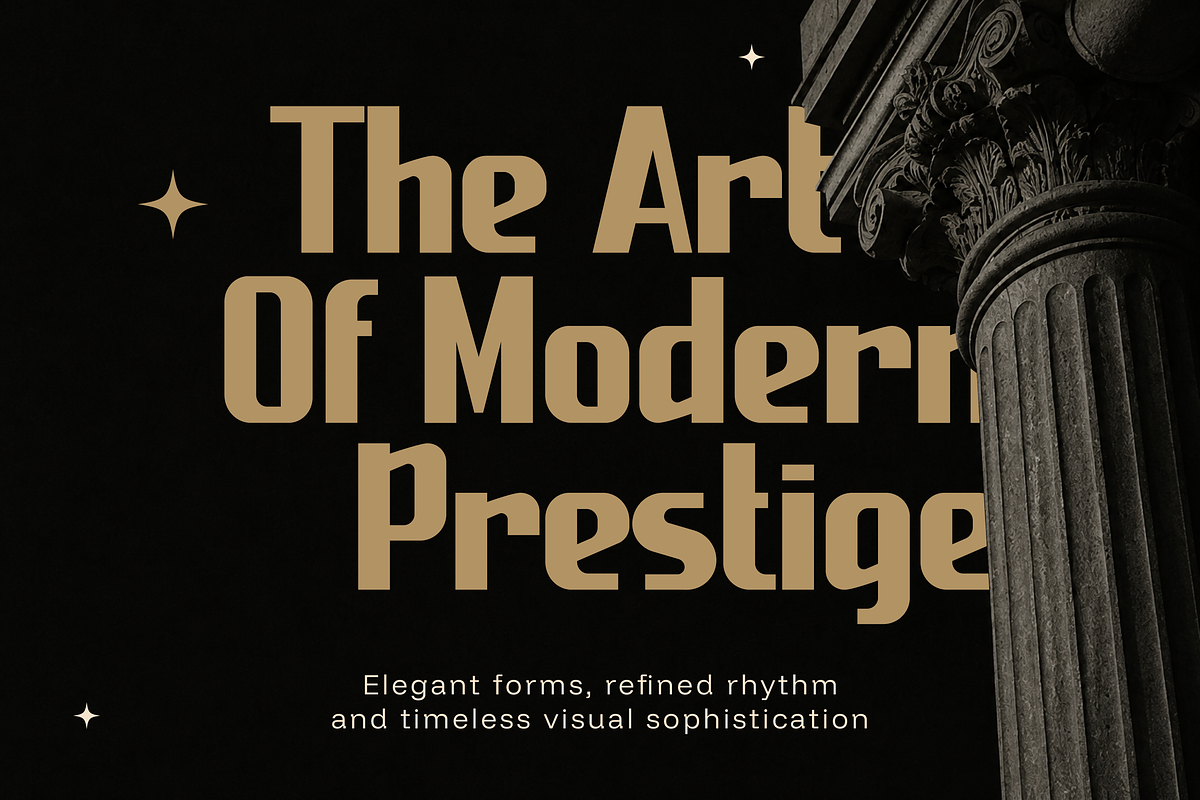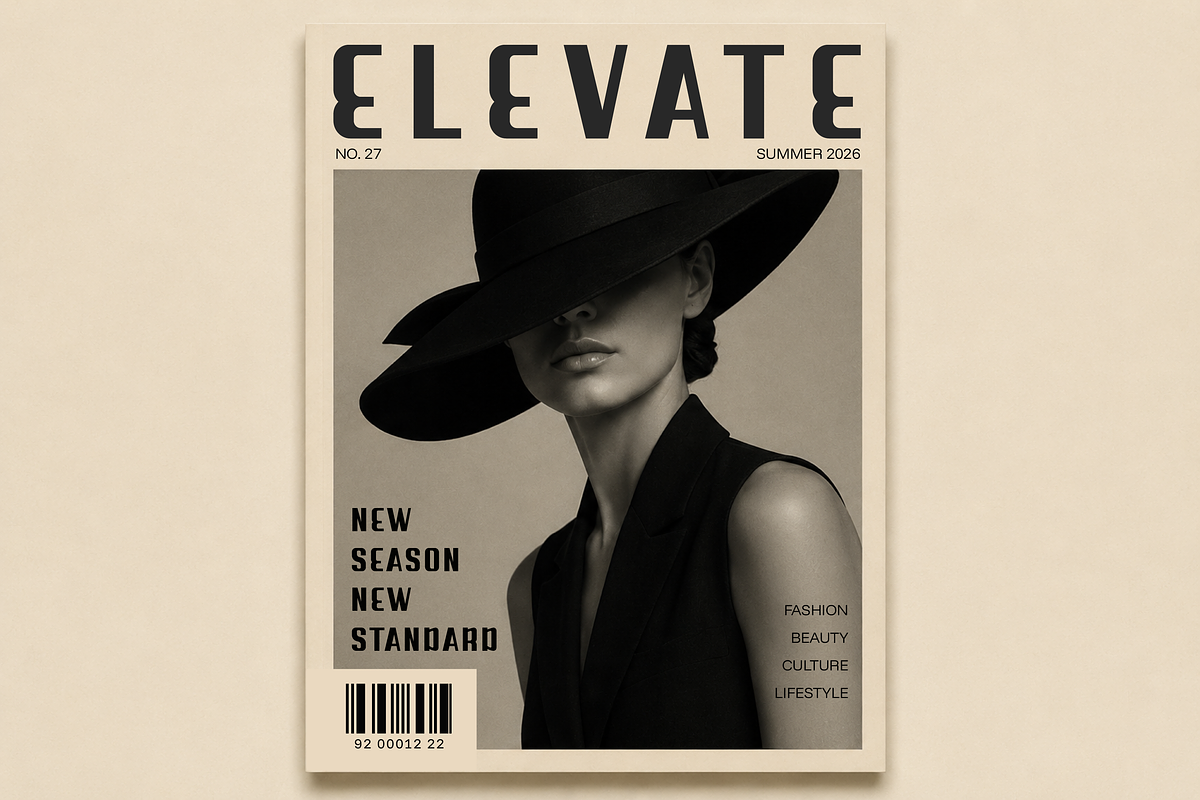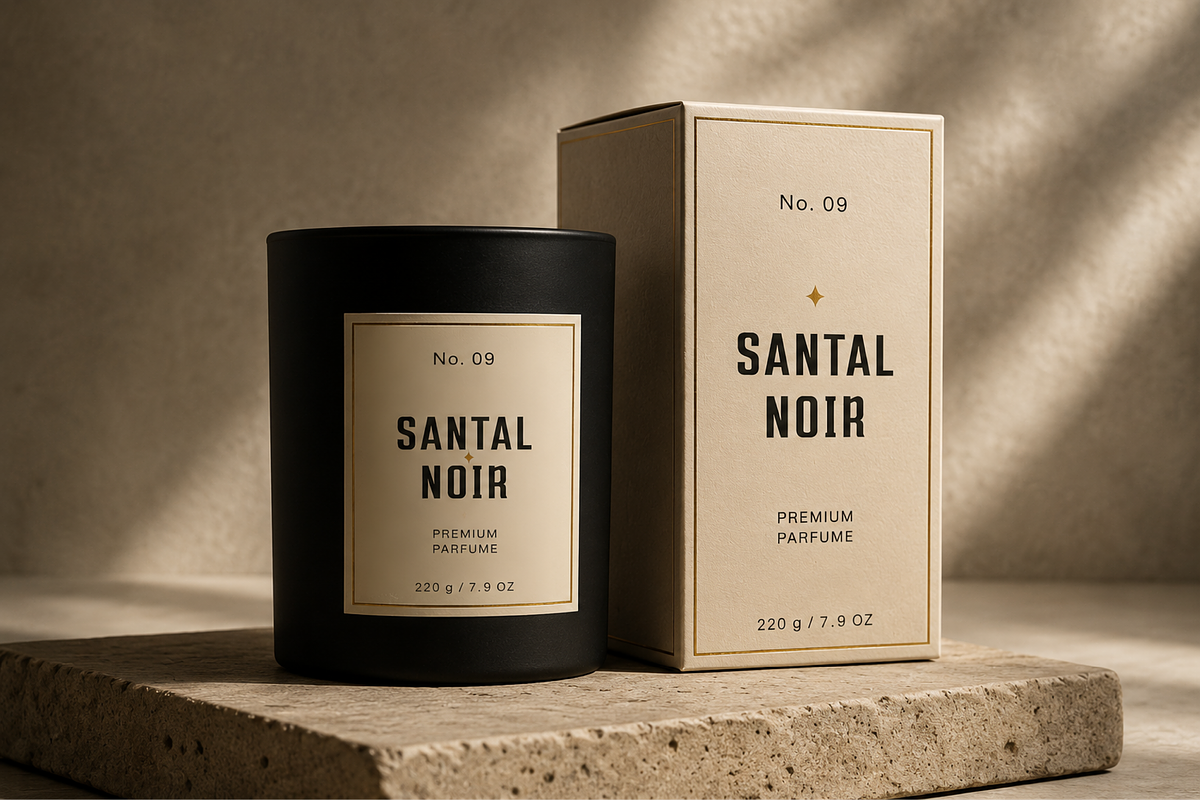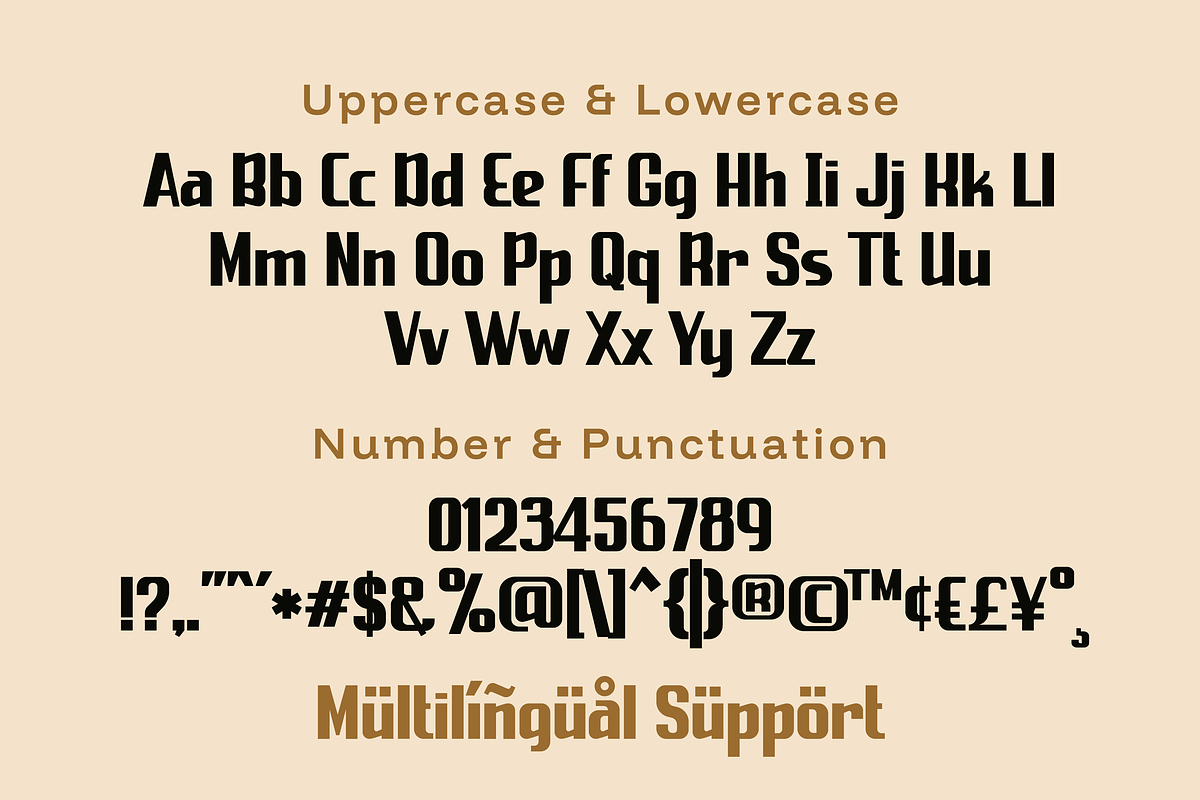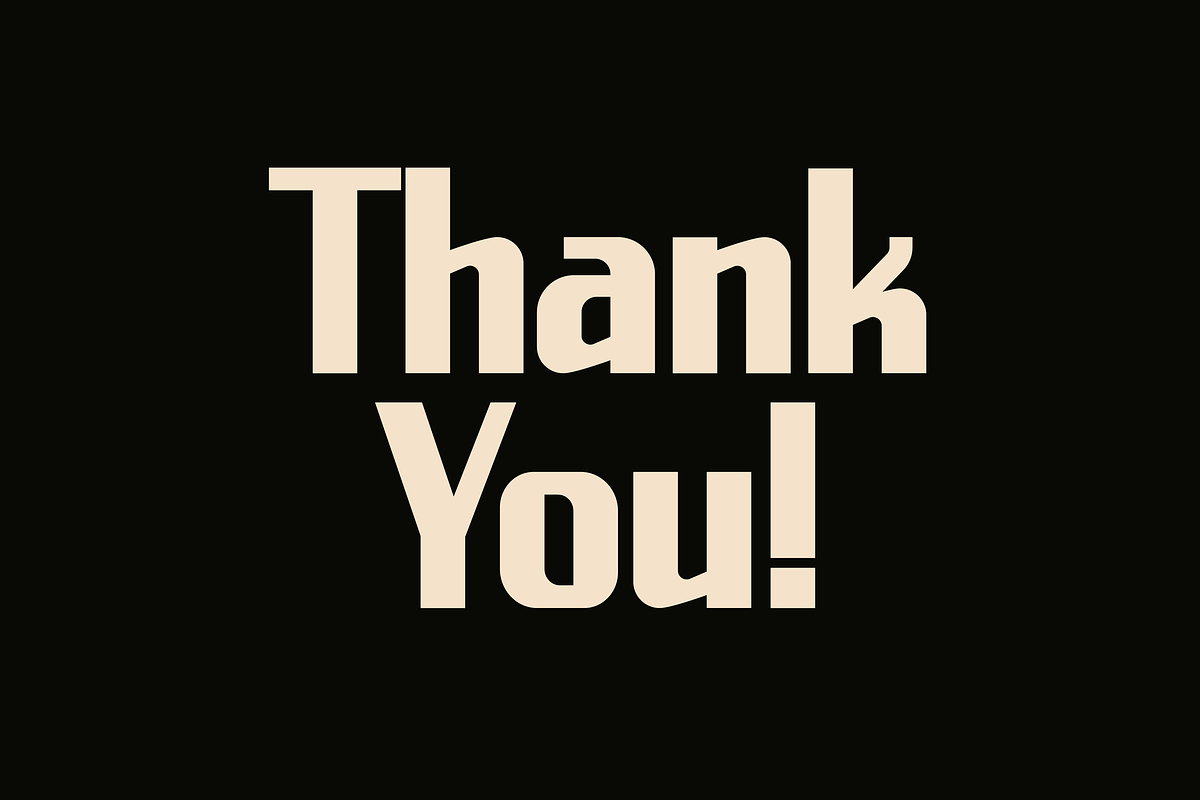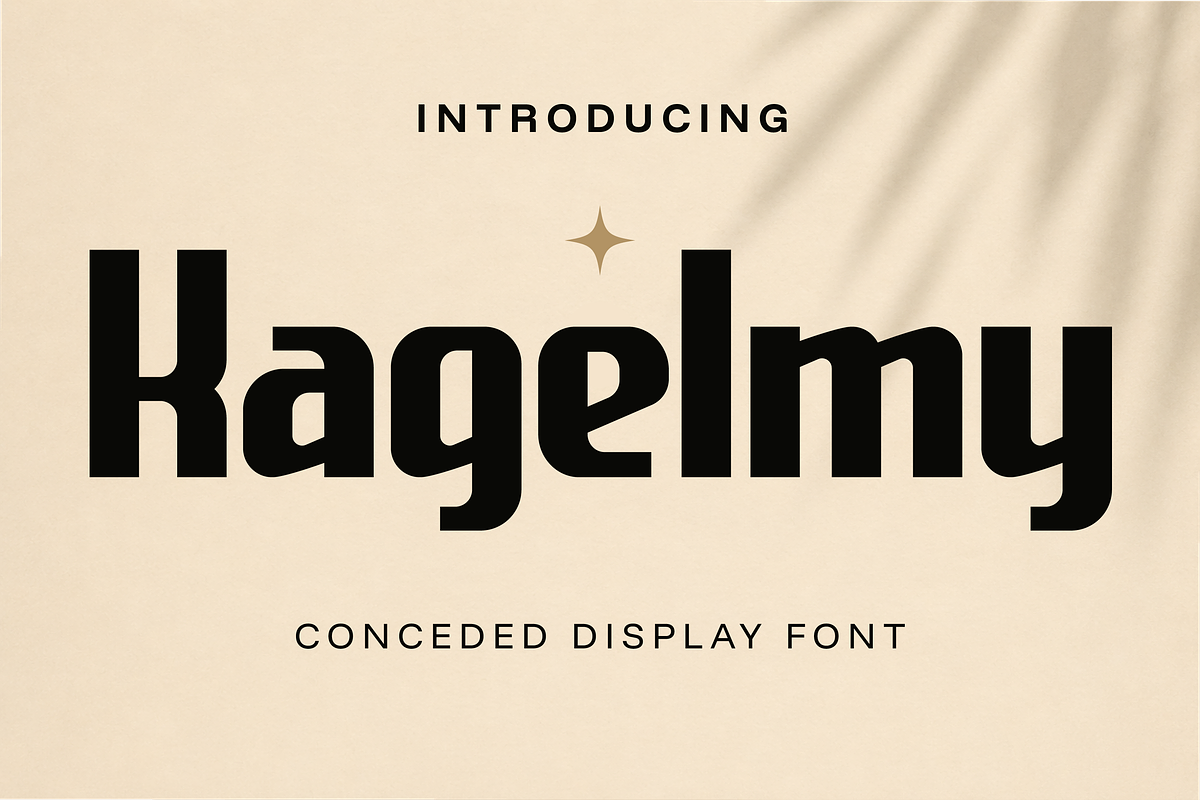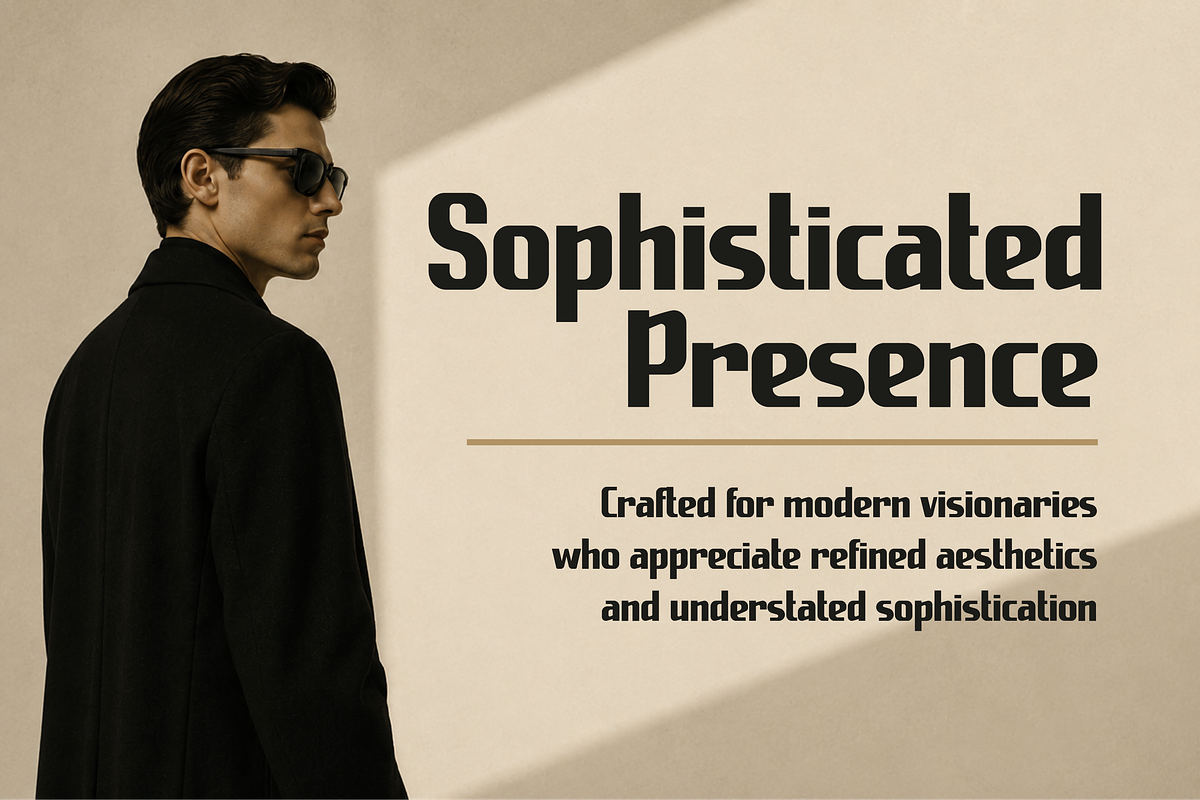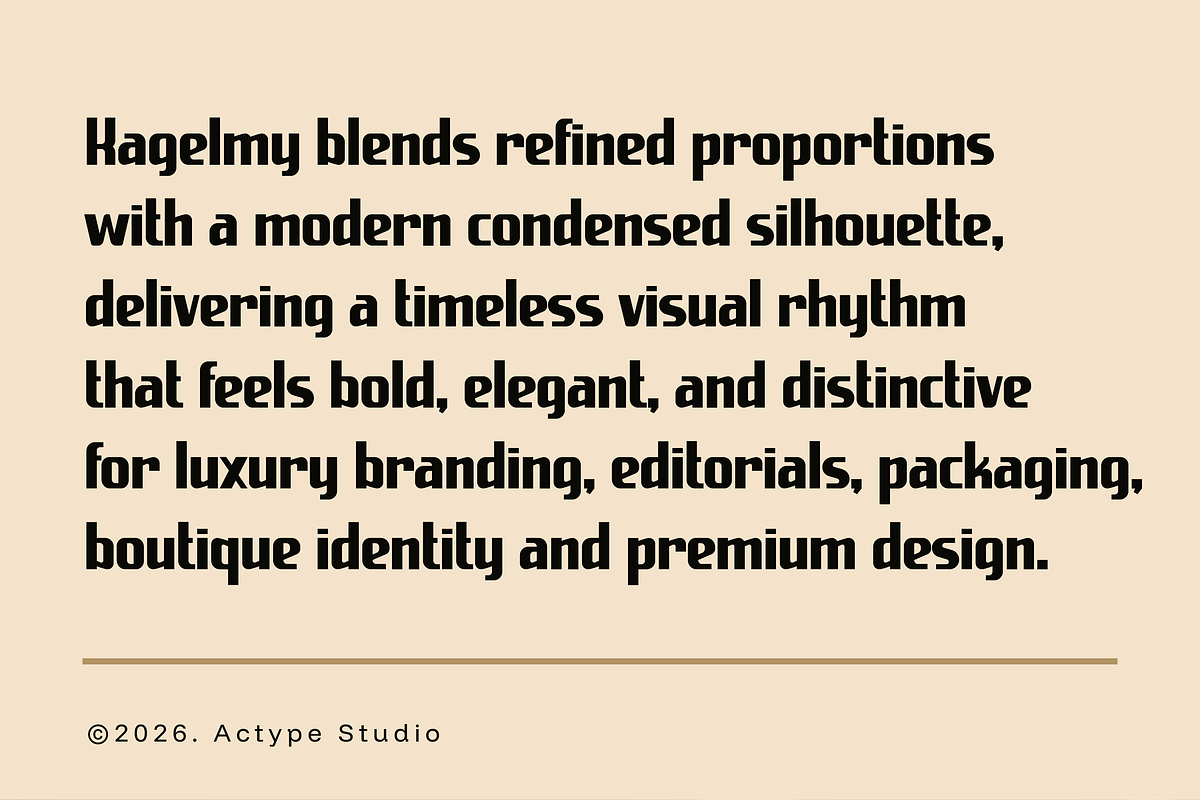
Kagelmy - Condensed Display Font
Kagelmy is a modern condensed display font with a bold and confident personality. Featuring tall letterforms, smooth curves, and clean geometric shapes, this font creates a strong visual presence while maintaining a sleek and stylish appearance.
Perfect for branding, posters, headlines, packaging, editorial layouts, logos, fashion designs, and modern typography projects, Kagelmy delivers a contemporary aesthetic with a minimalist yet powerful vibe.
Its condensed structure makes it highly effective for space-saving designs while still looking bold, elegant, and eye-catching.